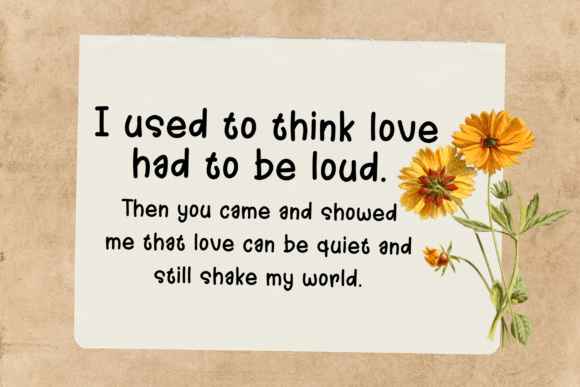
Evermine Font: A Versatile Sans Serif Font for Creative Projects
Are you looking for a font that can add a touch of elegance and simplicity to your creative projects? Look no further than the Evermine font. This sans serif font is perfect for a wide range of applications, from taking notes and writing a diary to creating greeting cards and designing banners. In this article, we’ll explore the features and benefits of the Evermine font, and show you how to use it to take your creative projects to the next level.
What is Evermine Font?
Evermine is a sans serif font, which means that it doesn’t have the small lines or flourishes that are characteristic of serif fonts. This gives it a clean and modern look that’s perfect for a wide range of applications. The font is highly legible, making it ideal for use in body text, headings, and titles.
What Can I Use Evermine Font For?
Evermine font is a versatile font that can be used for a wide range of creative projects. Here are some ideas to get you started:
- Note-taking and journaling: The Evermine font is perfect for taking notes, writing a diary, or keeping a journal. Its clean and simple design makes it easy to read and write.
- Greeting cards and invitations: Create beautiful greeting cards and invitations with the Evermine font. Its elegant design is perfect for special occasions like birthdays, weddings, and holidays.
- Banners and signs: Use the Evermine font to create eye-catching banners and signs for events, promotions, or advertising.
- Content creation: The Evermine font is perfect for creating engaging content for blogs, websites, and social media platforms.
- Mugs and stationery: Add a personal touch to your mugs, stationery, and other everyday items with the Evermine font.
- Shirts and apparel: Create stylish and modern designs for shirts, t-shirts, and other apparel with the Evermine font.
- Social media posts: Use the Evermine font to create visually appealing social media posts that stand out from the crowd.
Benefits of Using Evermine Font
So why choose the Evermine font for your creative projects? Here are some benefits to consider:
- Clean and modern design: The Evermine font has a clean and modern design that’s perfect for creating professional-looking projects.
- High legibility: The font is highly legible, making it easy to read and understand.
- Versatility: The Evermine font can be used for a wide range of applications, from note-taking to designing banners.
- Elegant and simple: The font has an elegant and simple design that’s perfect for creating beautiful and sophisticated projects.
Tips for Using Evermine Font
Here are some tips for using the Evermine font effectively:
- Use it for body text: The Evermine font is perfect for use in body text, as it’s highly legible and easy to read.
- Experiment with font sizes: Try using different font sizes to create visual interest and hierarchy in your projects.
- Combine it with other fonts: The Evermine font can be paired with other fonts to create a unique and interesting look.
- Use it for headings and titles: The font is perfect for use in headings and titles, as it’s clean and easy to read.
In conclusion, the Evermine font is a versatile and elegant sans serif font that’s perfect for a wide range of creative projects. Its clean and modern design, high legibility, and simplicity make it an excellent choice for note-taking, greeting cards, banners, content creation, and more. By following the tips outlined in this article, you can use the Evermine font to take your creative projects to the next level and create beautiful and sophisticated designs.